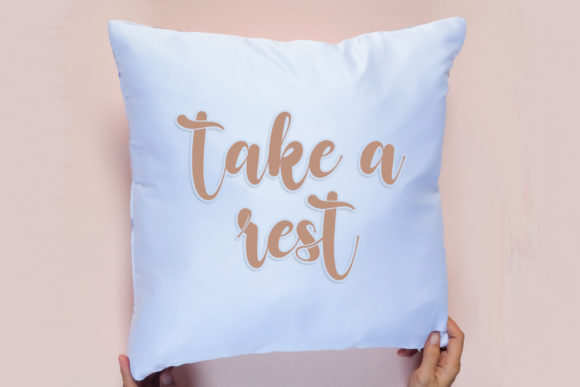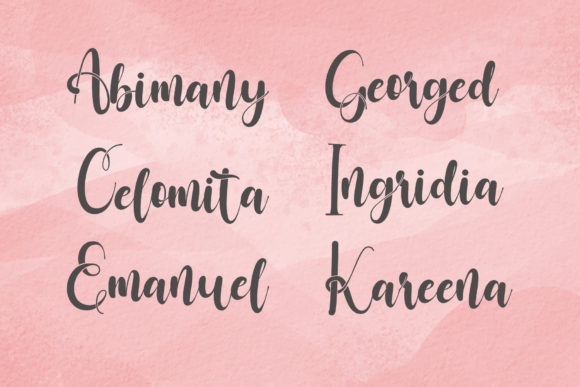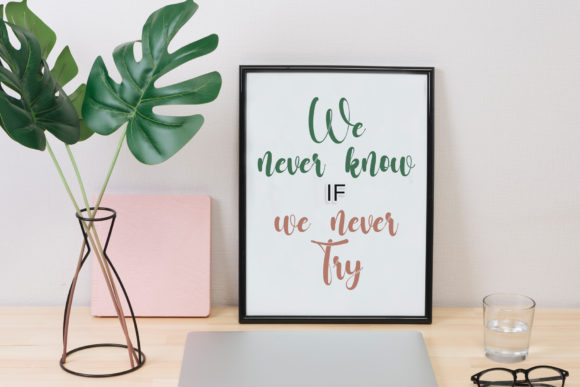
Introduction to Little Tabilla Font
Do you remember that moment when you finally found the perfect combination of colors and textures for your next crafting project? It’s like the stars aligned and your creative vision came to life. For many designers, that moment is a result of having the right design resources at their fingertips. One such resource that can elevate your project from ordinary to extraordinary is the Little Tabilla Font.
This modern and cute handwritten font has a playful feel that will add a personal touch to any design. Its high-quality design makes it a valuable asset for designers looking to create unique and eye-catching graphics. With a free download option, you can access this design resource and start incorporating it into your next creative project. Whether you’re working on a digital design or a physical craft, Little Tabilla Font is sure to bring a touch of whimsy and personality to your work.
Key Features of Little Tabilla Font
- High-quality design resource for creative projects
- Unique, playful font with a transparent background, perfect for adding visual interest to designs
- Resolution: Optimized for high-resolution displays, ensuring crisp and clear text rendering
- Perfect for use in digital design projects, such as web pages, social media graphics, and more
Honest Review: Little Tabilla Font
I recently had the chance to work with the Little Tabilla Font, and I must say it’s a great addition to any designer’s toolkit. This free download is a high quality design resource that’s perfect for creative projects.
One of the standout features of the Little Tabilla Font is its unique and elegant design style. It’s perfect for projects that require a touch of sophistication and whimsy. The font is also incredibly versatile and can be used for a wide range of applications, from branding to typography.
Here are some of the things that work well with the Little Tabilla Font:
- ✨ High quality design and clarity
- ✨ Transparent background, making it easy to work with
- ⚠️ Limited character set, which may not be suitable for longer text blocks
- ⚠️ May not be suitable for very small font sizes
Overall, I’m really impressed with the Little Tabilla Font and would highly recommend it to designers looking for a unique and elegant design solution. With its high quality design and versatility, it’s a great addition to any design project.
The Little Tabilla Font is suitable for various creative projects, including:
- Logos
- Posters
For optimal results, use the Little Tabilla Font in conjunction with other design elements, such as images and colors, to create a visually appealing design.